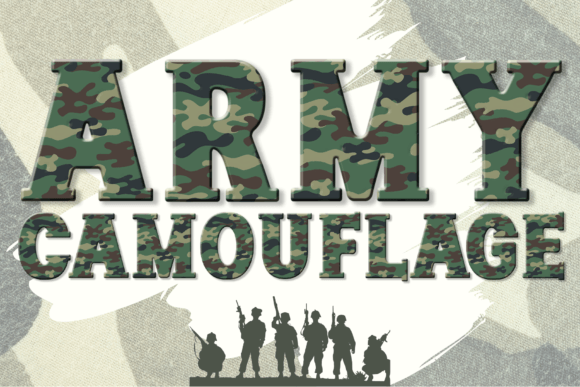
Introducing the Army Camouflage Font: Add a Touch of Fun and Adventure to Your Designs
Are you looking for a font that can add a dash of excitement and playfulness to your designs? Look no further than the Army Camouflage Font! This cool and fun color font is perfect for creating designs that feel good, such as those for the 4th of July, birthdays, family days, and fun festivals. In this article, we’ll explore the features and benefits of the Army Camouflage Font, and how you can use it to take your designs to the next level.
What is the Army Camouflage Font?
The Army Camouflage Font is a unique and eye-catching color font that features a camouflage pattern in a variety of colors. The font is designed to be fun and playful, making it perfect for designs that need to convey a sense of adventure and excitement. With its bold and colorful letters, the Army Camouflage Font is sure to grab attention and make your designs stand out.
What Can I Use the Army Camouflage Font For?
The Army Camouflage Font is incredibly versatile and can be used for a wide range of design projects. Here are some ideas to get you started:
- T-shirts: Create custom t-shirts for special events or everyday wear with the Army Camouflage Font.
- Cards: Add a personal touch to your greeting cards with this fun and colorful font.
- Party Invites: Create eye-catching party invitations that set the tone for a fun and exciting celebration.
- Mugs: Design custom mugs with the Army Camouflage Font for a unique and functional gift.
- Wall Art: Add a touch of personality to your home decor with wall art featuring the Army Camouflage Font.
- Bags: Design custom bags, such as tote bags or backpacks, with the Army Camouflage Font for a fun and stylish accessory.
Why Choose the Army Camouflage Font?
So why choose the Army Camouflage Font for your design projects? Here are just a few reasons:
- Unique and eye-catching: The Army Camouflage Font is a one-of-a-kind font that will add a touch of excitement and adventure to your designs.
- Versatile: This font can be used for a wide range of design projects, from t-shirts to wall art.
- Cute and fun: This font is perfect for designs that need to convey a sense of fun and playfulness.
If you’re looking for a font that can add a touch of excitement and adventure to your designs, the Army Camouflage Font is the perfect choice. With its unique and eye-catching camouflage pattern, this font is sure to grab attention and make your designs stand out. Whether you’re a designer or crafter, the Army Camouflage Font is a great addition to your font library. So why wait? Download the Army Camouflage Font today and start creating fun and exciting designs!